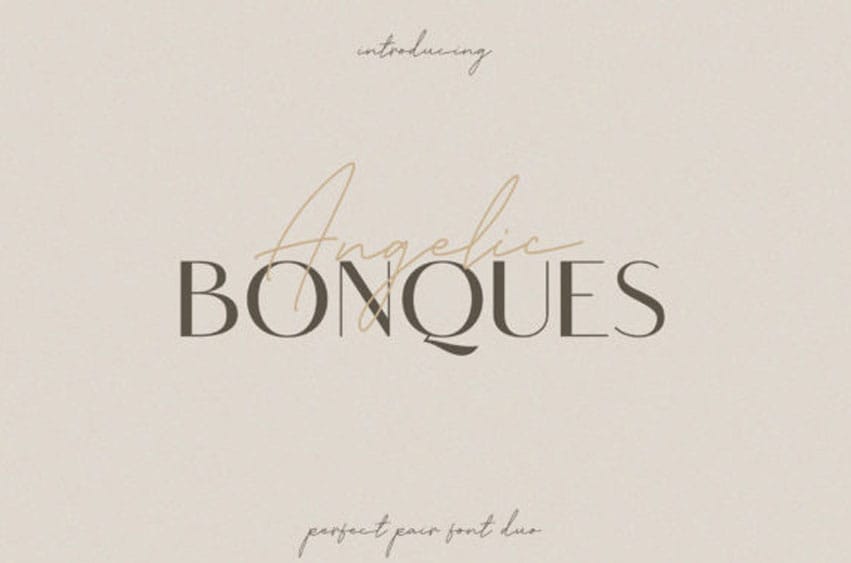
Angelic Bonques Font is a beautiful and elegant font trio that will add a romantic look to any design project.
Most suitable for poster design, headlines, quote writing, pamphlets, greeting cards, product packaging, book covers, logotypes, album covers, etc.